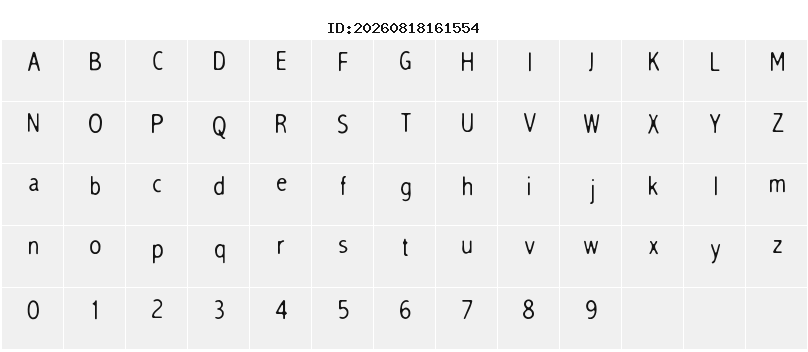
SleepTalk Preview
• Font Name: SleepTalk
• Full Font Name: SleepTalk
About SleepTalk.ttf
SleepTalk.ttf is a modern, elegant sans-serif font designed for ultimate readability and visual harmony. Perfect for branding, headlines, web design, and print materials.